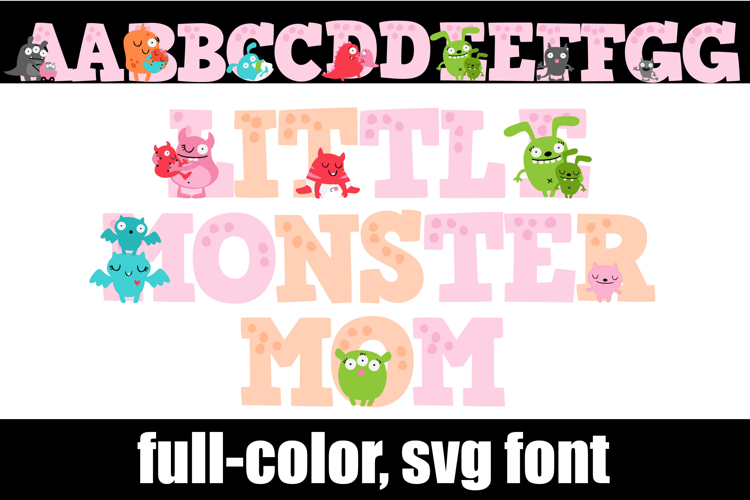
Little Monster Mom Color Font
This hand-crafted font is a full-color font featuring loving monster moms on each serif letter. There is an alt case of each letter with a different color combination.